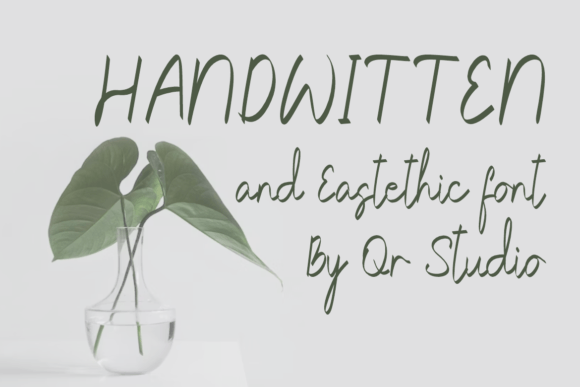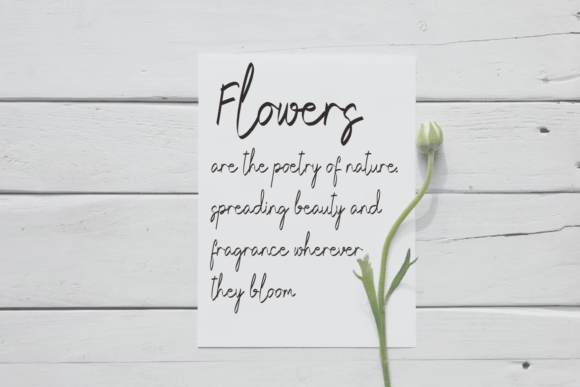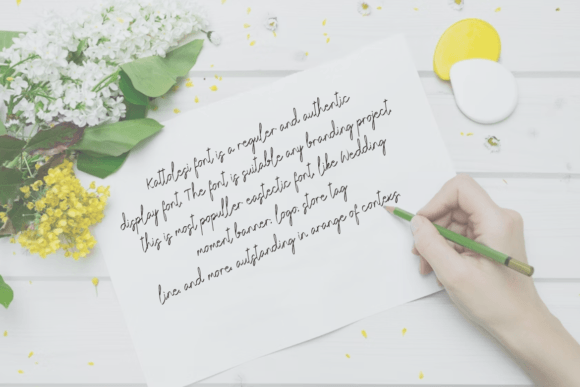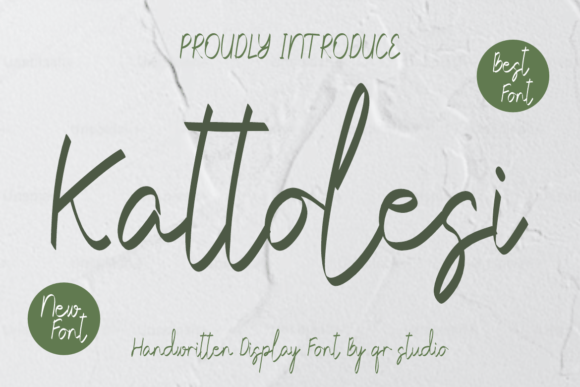
Introduction to Kattolesi Font
Kattolesi Font is a bold and authentic display font.
The font is suitable for any branding project like logo, sport, and many more Outstanding in a wide range of contexts.
Key Features of Kattolesi Font
Why Choose Kattolesi Font?